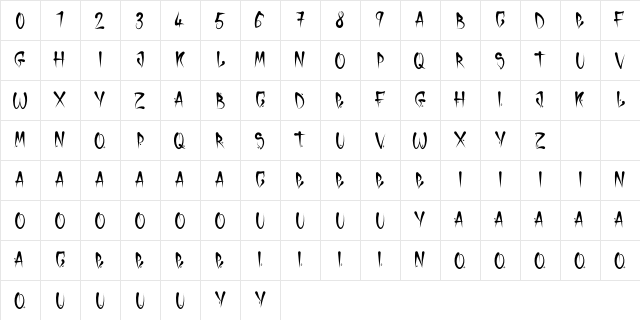
Horror Cholo-DaFont Regular Font Preview
Horror Cholo-DaFont Regular
Horror Cholo-DaFont Regular Font Details
| Foundry | Biroakakarati |
| Designer | Biroakakarati |
Design Context for Horror Cholo-DaFont Typeface
Horror Cholo-DaFont leans into the macabre with letterforms designed to disturb and intrigue in equal measure.
Perfect for anything that needs to unsettle — game titles, horror branding, and macabre invitations.
Font Pairing: Pair with a clean neutral sans-serif for body copy to let Horror Cholo-DaFont's character lead without overwhelming the composition.
Pro Tip: Use Horror Cholo-DaFont at larger display sizes for maximum impact. Consider generous tracking to let the disturbing character of each letterform breathe.